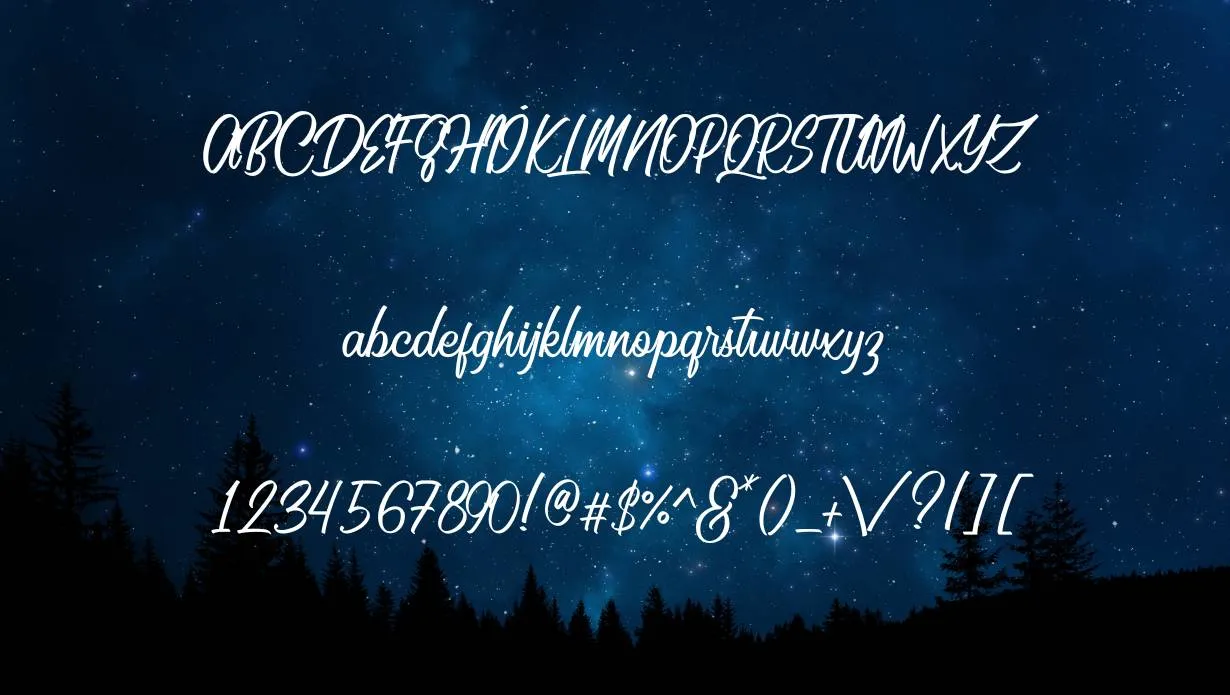
Ecosmith font is like a breath of fresh air for your words, bringing a touch of nature to your text. When you use it, your text becomes like a stroll through the woods, creating a connection with the outdoors.
It’s great for designs that need a hint of natural beauty. Ecosmith’s letters are like leaves rustling in the wind, each one contributing to the overall organic feel of your message.